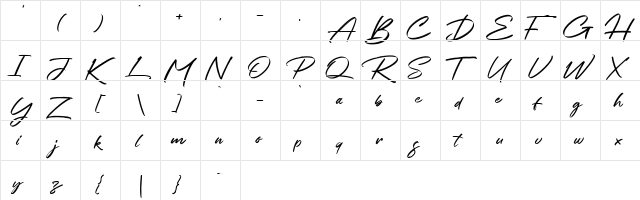
Chalifor Dalsatic VEKTOR Regular
Regular · Cotbada Studio  ·
Design Context for Chalifor Dalsatic VEKTOR Typeface
Chalifor Dalsatic VEKTOR is a composed and adaptable typeface that performs quietly and consistently across a wide range of design contexts.